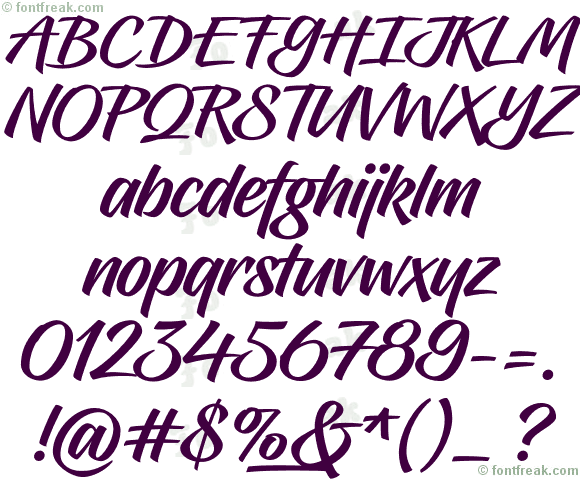
Hughs
About Hughs
Hughs by Youssef Habchi is a captivating display font that blends modern aesthetics with a touch of elegance. This script-style font features fluid, calligraphic strokes that evoke a sense of warmth and creativity. The stroke weight varies beautifully, creating a dynamic contrast that enhances its visual appeal. The letters are well-spaced, allowing for easy readability while maintaining a stylish flair. Decorative elements are subtly integrated, giving the font a sophisticated yet approachable look.
Hughs font is perfect for a variety of creative applications. It shines in wedding invitations, where its elegant curves can enhance the romantic theme. Additionally, it works wonderfully for branding, particularly in artisanal or boutique contexts, such as handcrafted goods or specialty coffee shops. Movie posters can also benefit from its unique character, drawing attention and setting a distinctive tone. Furthermore, it’s an excellent choice for restaurant menus, where it can convey a sense of sophistication and warmth, engaging diners from the moment they glance at the menu.
The target audience for the Hughs font includes graphic designers, small business owners, and content creators who are looking to elevate their projects with a unique typeface. This font provides an opportunity for users to express their brand’s personality and artistic vision.
What makes the Hughs font truly stand out is its ability to blend elegance with versatility. Whether used in digital or print media, its charming design captures attention while remaining functional. The combination of its artistic flair and practical application makes it a valuable addition to any designer’s toolkit. For those interested in enhancing their projects, the Hughs font free download offers an accessible way to incorporate this stylish typeface into their work.